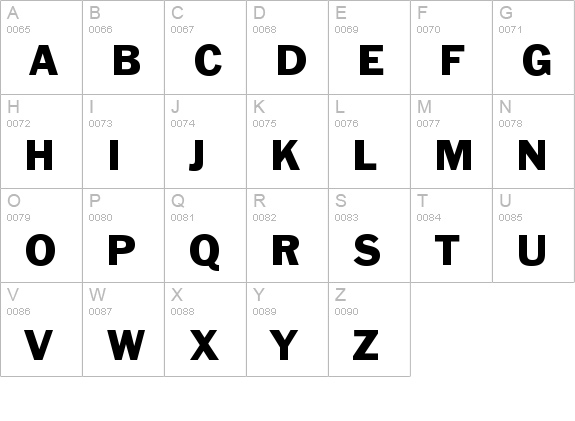
Franklin Gothic Font Details
Franklin Gothic font is a classic and timeless typeface that exudes strength and sophistication. Its bold and clean lines make it a versatile choice for a variety of design projects, from editorial layouts to branding materials. The font's sleek and modern appearance gives any text a professional and polished look. One of the best things about Franklin Gothic font is that it is free for personal and commercial use. You can easily download this font at FontsMarket.com and start using it in your projects right away. With its wide range of weights and styles, Franklin Gothic font offers endless possibilities for creative expression. Whether you're designing a website, creating a logo, or crafting a brochure, Franklin Gothic font is sure to make a bold statement and leave a lasting impression.